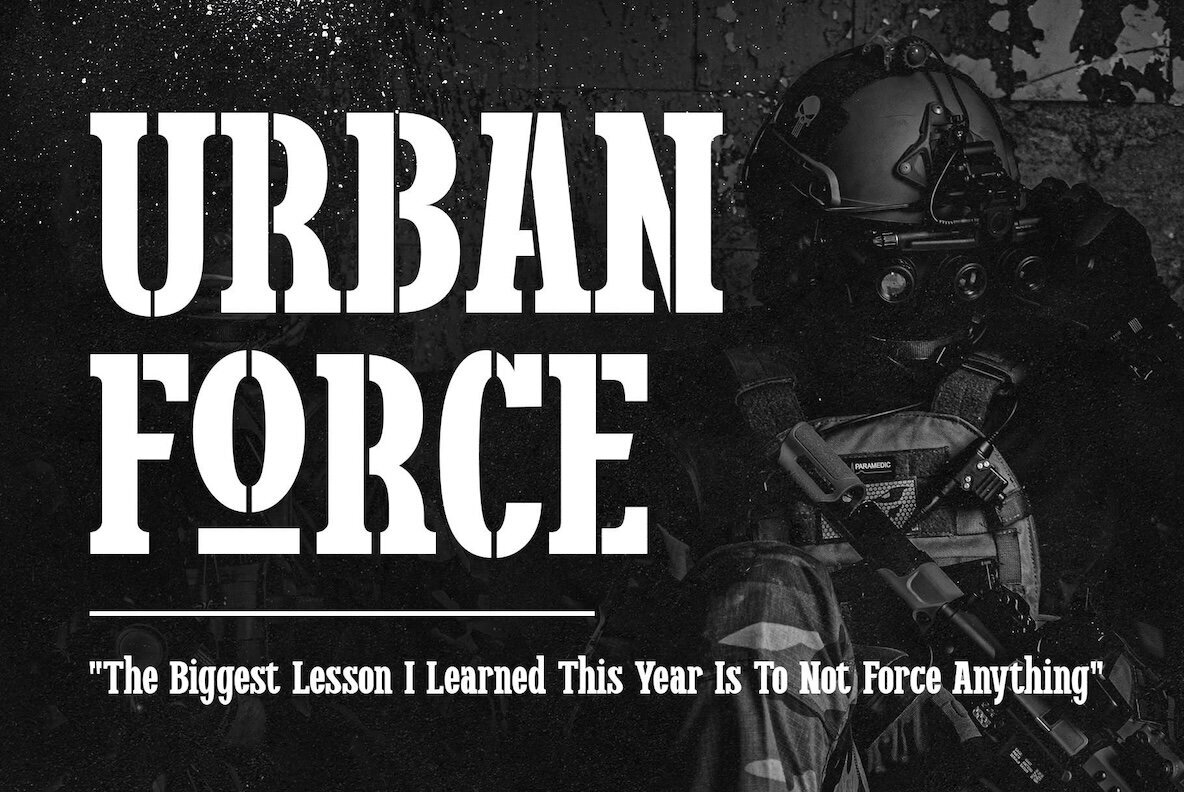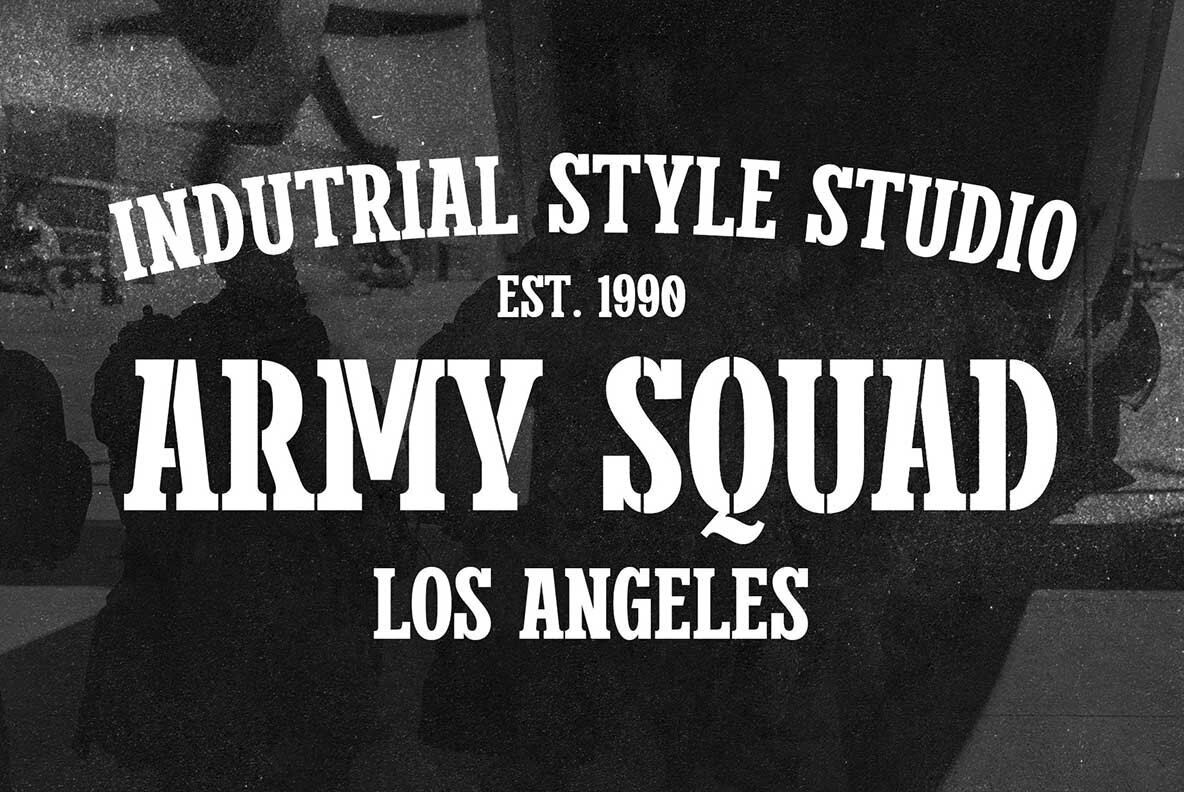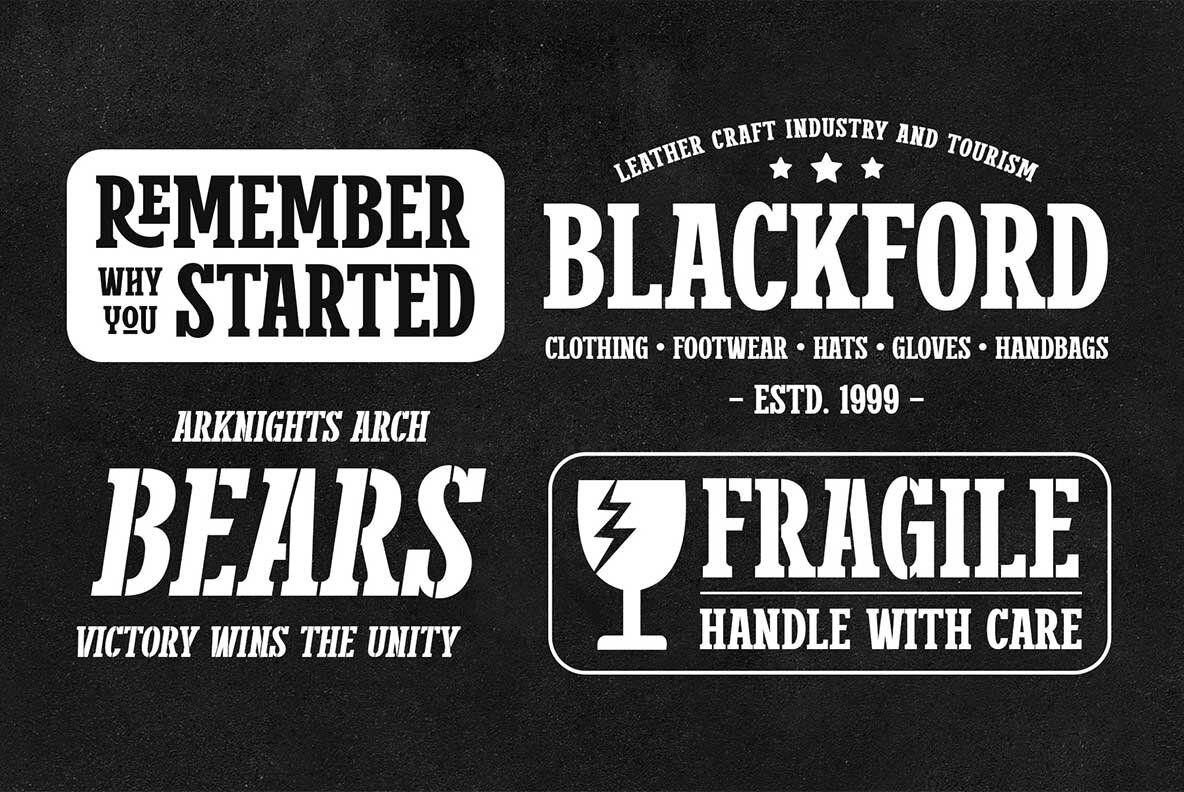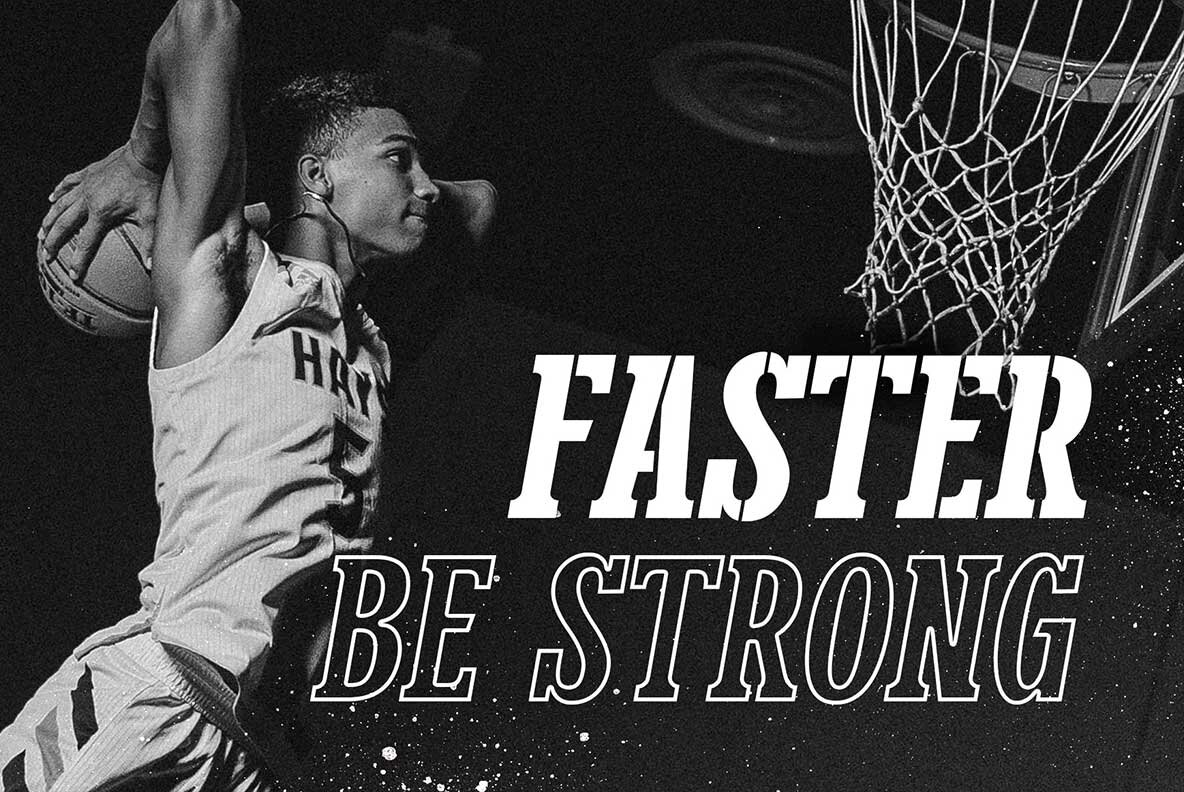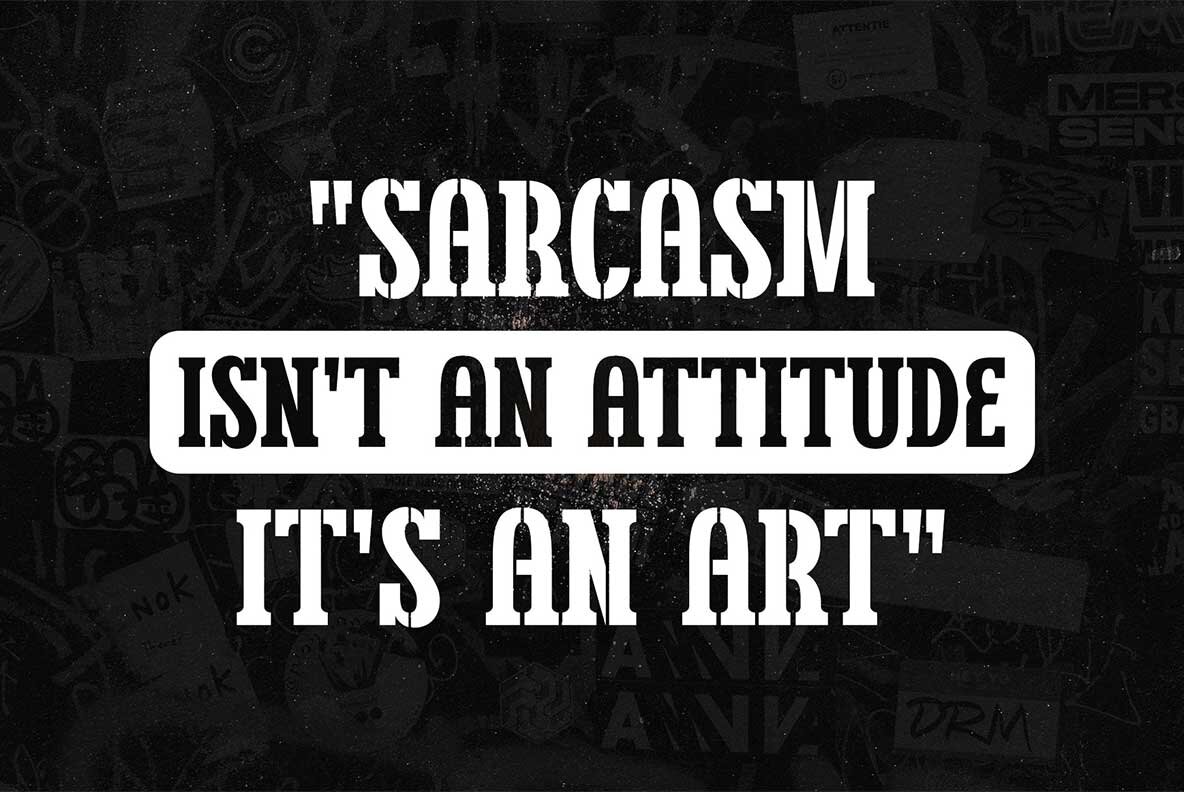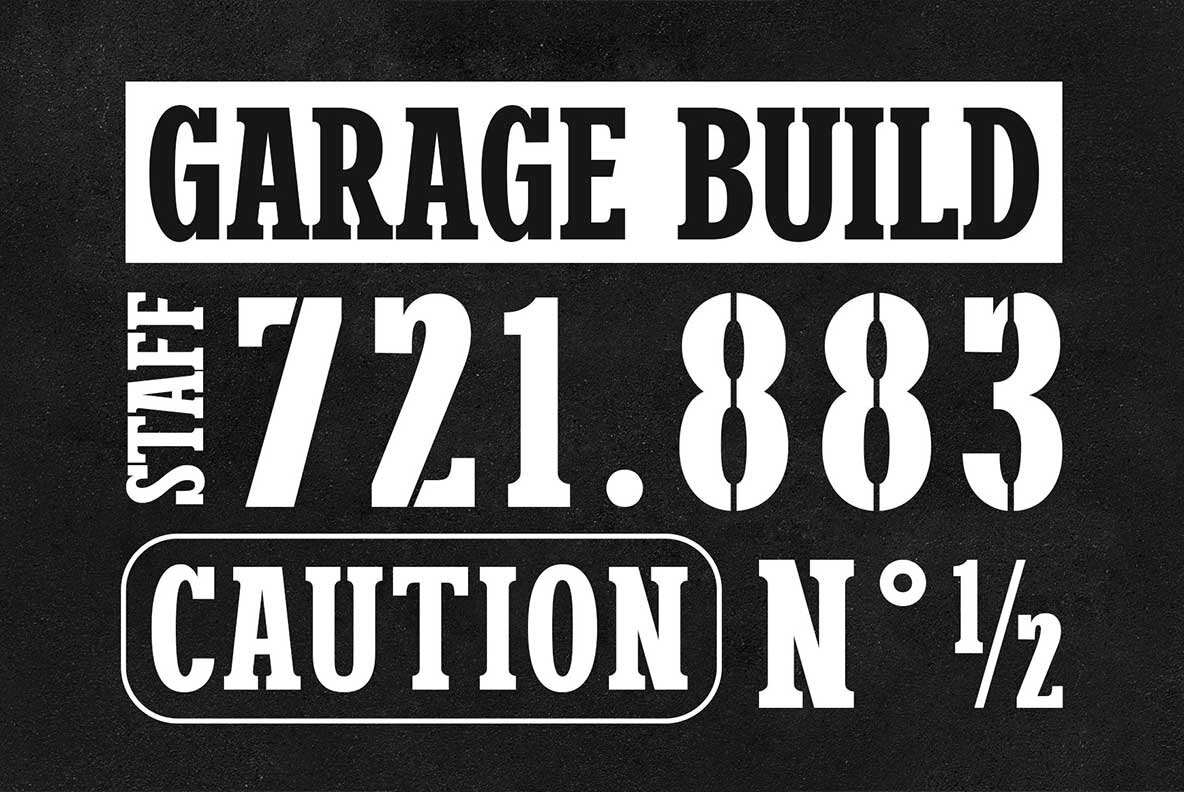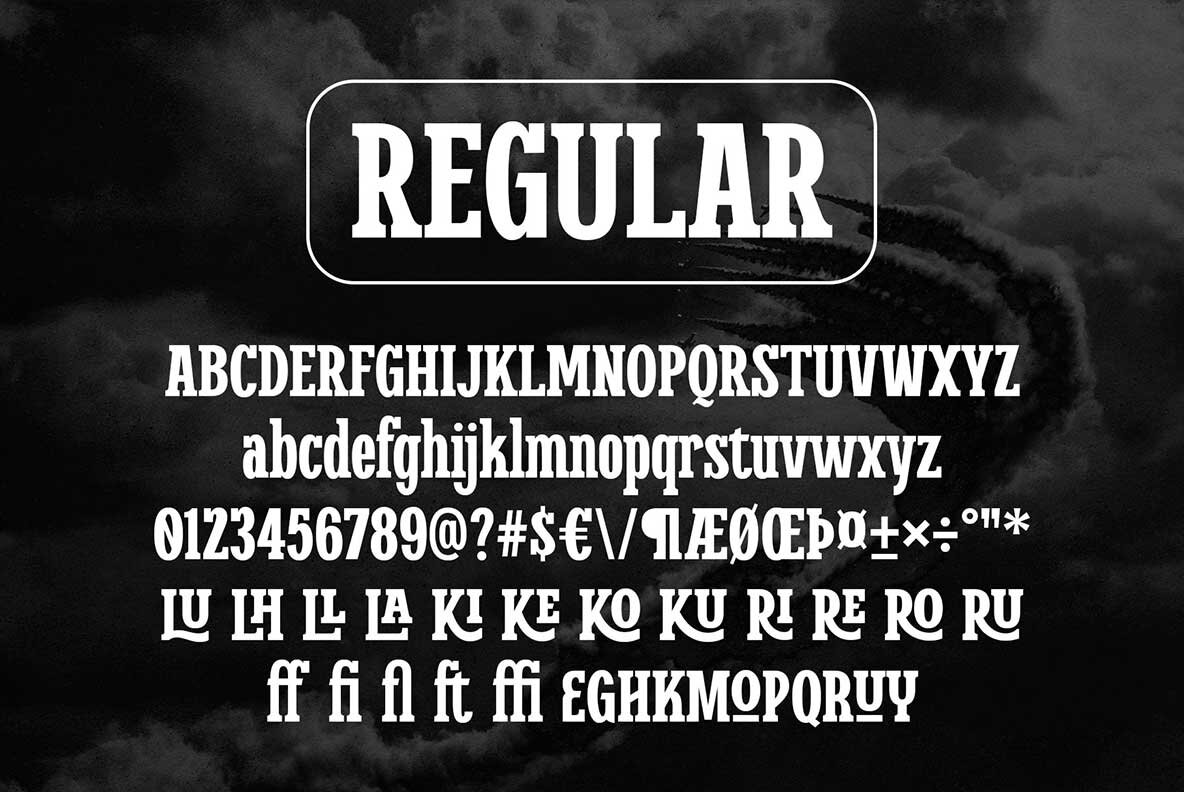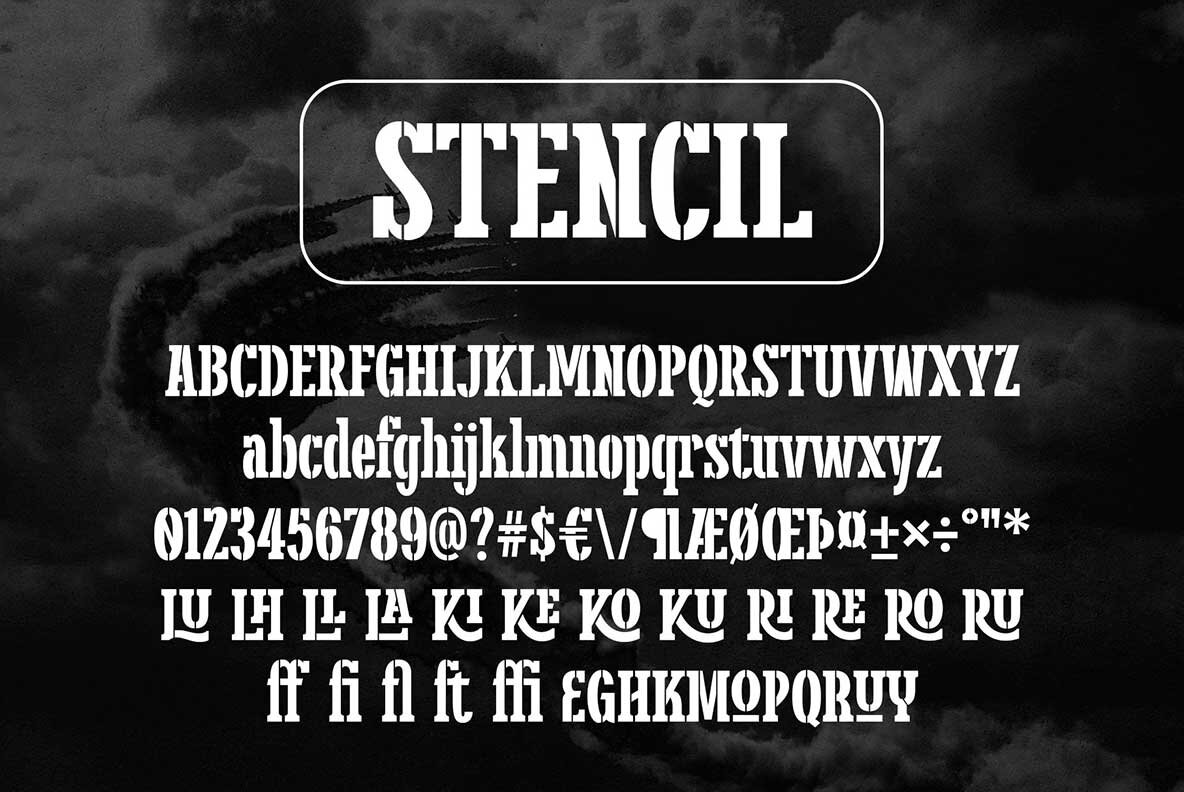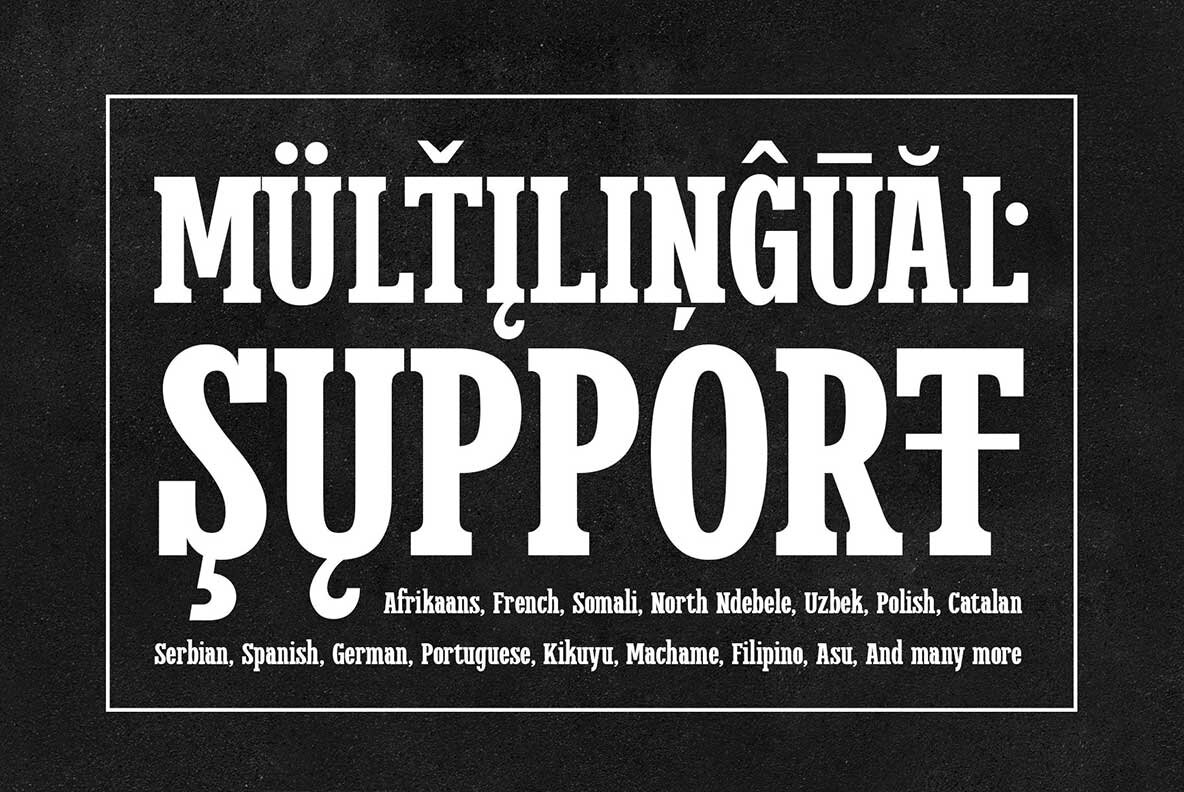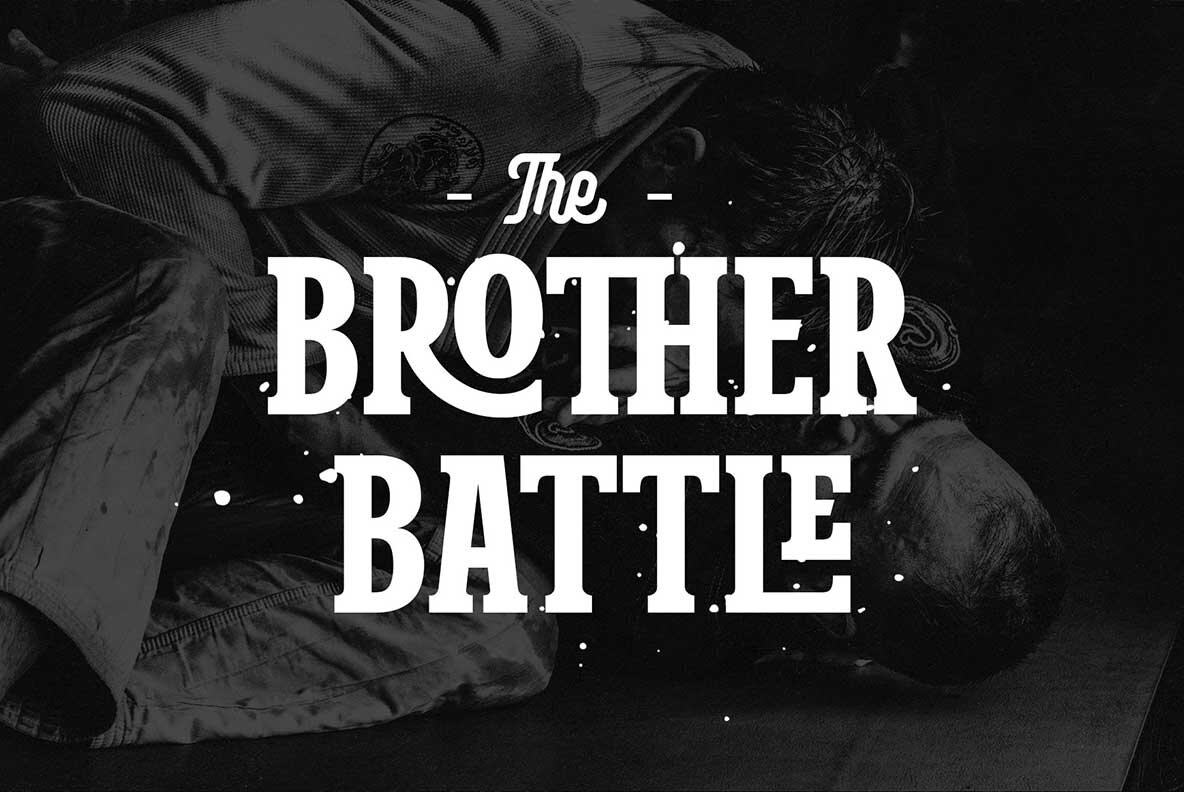
Larocha Font
Larocha Regular
Larocha Stencil
Larocha by Novitype is a versatile font that adds a touch of elegance to any project. Its slab serif design is available in both regular and stencil styles, making it suitable for a wide range of applications. The regular style is perfect for vintage logos, titles, and quotes, while the stencil style excels in signage, labels, and posters. Larocha's timeless appeal makes it ideal for designs with themes such as sports, military, and vintage. The font's alternates and ligatures offer extensive customization options, allowing you to create unique designs with ease. Whether you're crafting a logo, poster, or any other design project, Larocha provides the perfect balance of style and functionality.Larocha: A Sophisticated Slab Serif for Diverse Creations